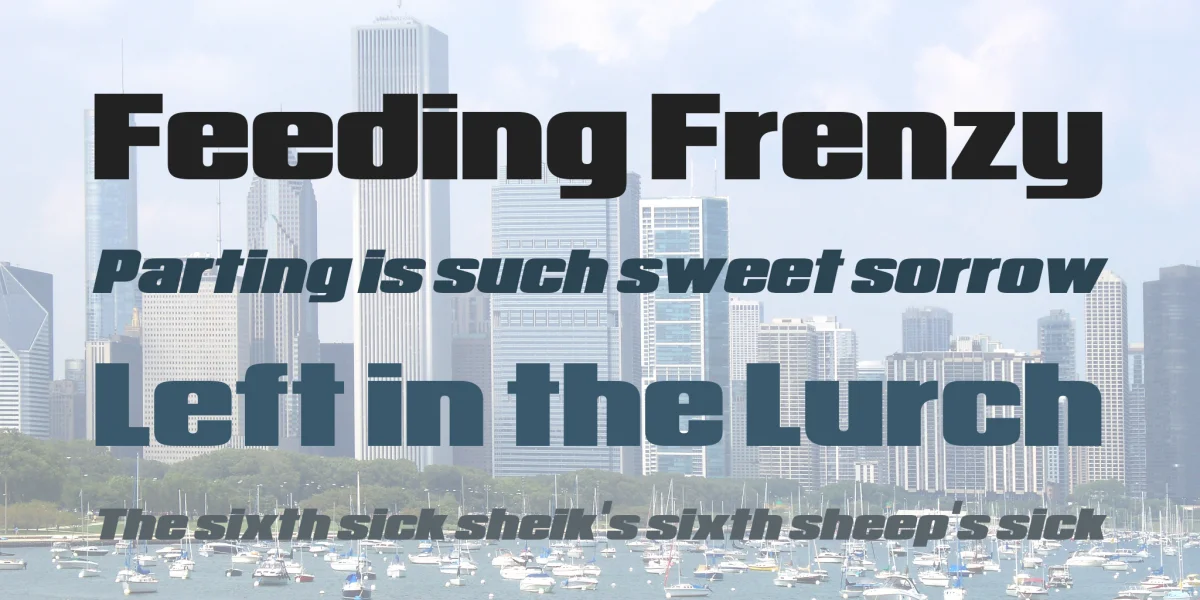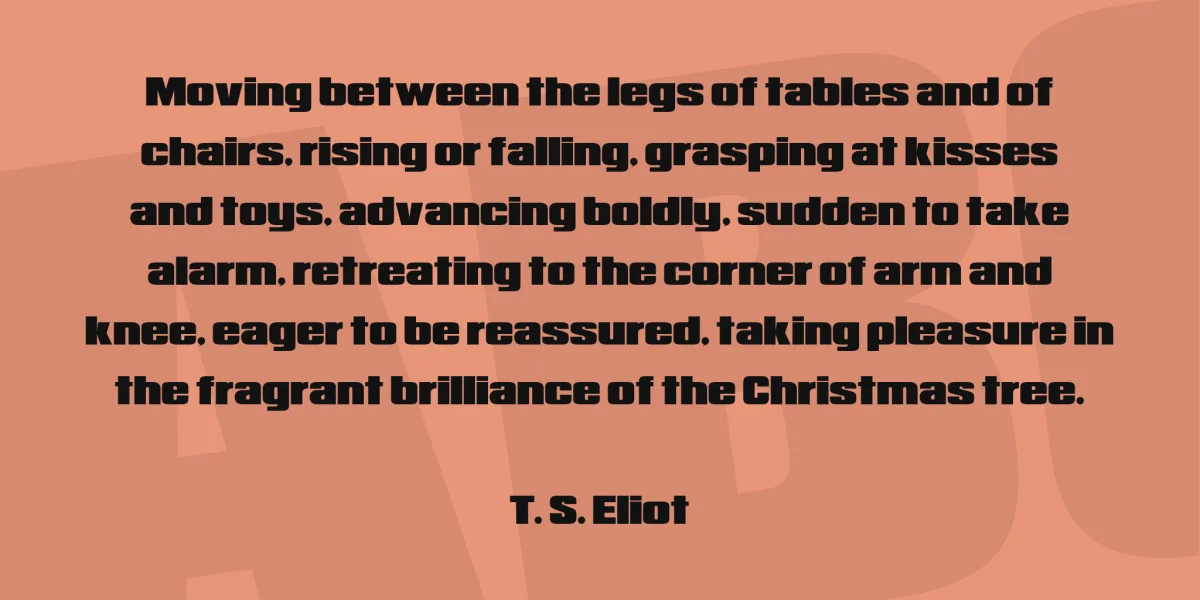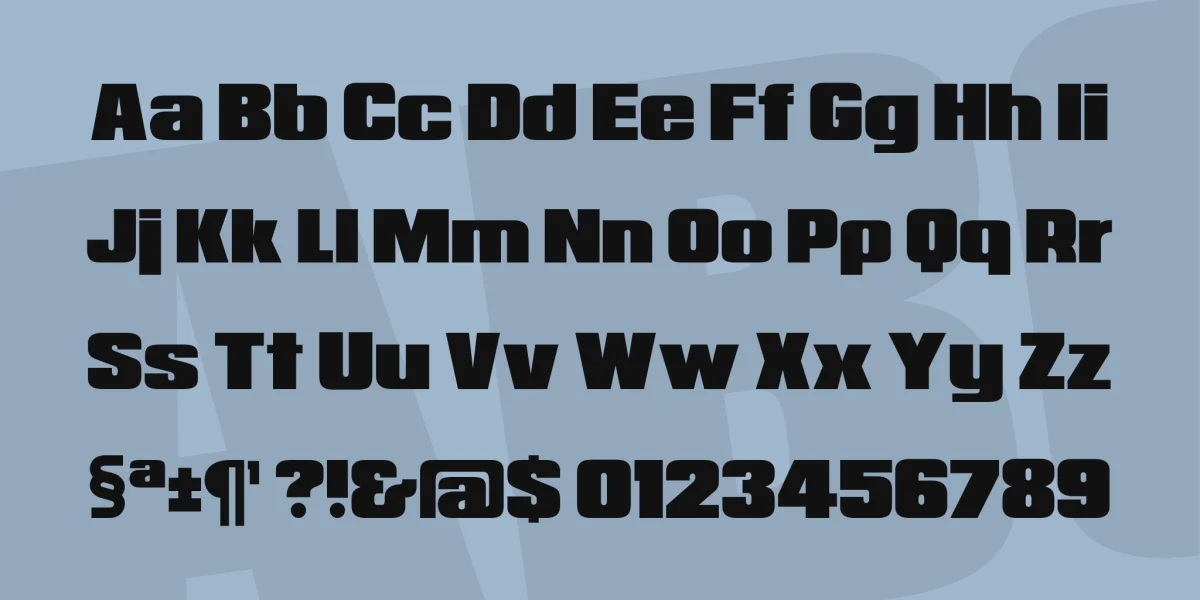
Thank you for having a look. Padaloma was one of the last projects i worked on before I left typography for over a decade. This is a smooth and hard bodied font that just aches to be used in titles and logos. It's broad strokes intertwine with rounded corners to produce a pleasing appearance in tight quarters. The complete version contains basic and extended latin, full punctuation, kerning, Eastern European accents, Cyrillic characters, and Greek characters. Italic, bold, and 3D are included with purchase of end user license agreement (EULA) upon request.